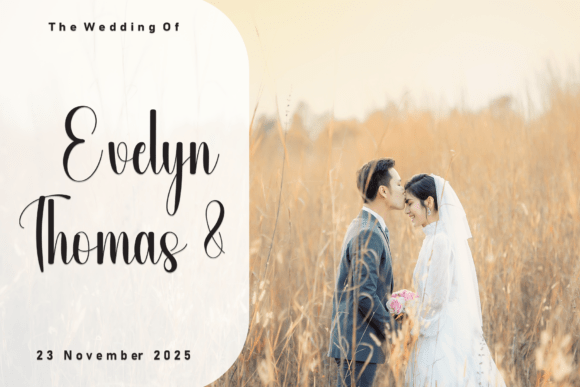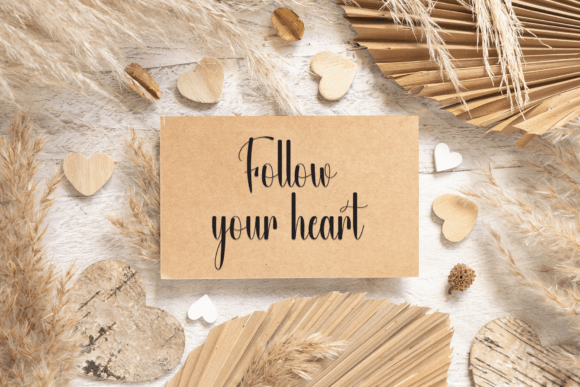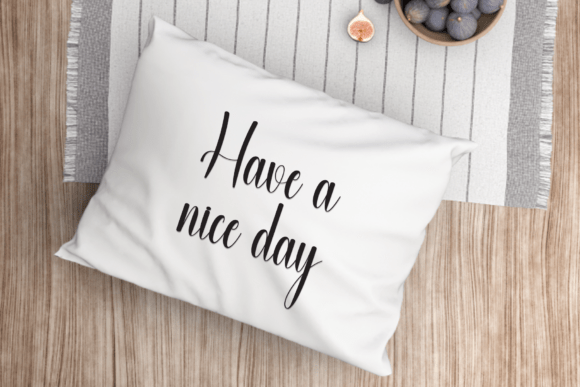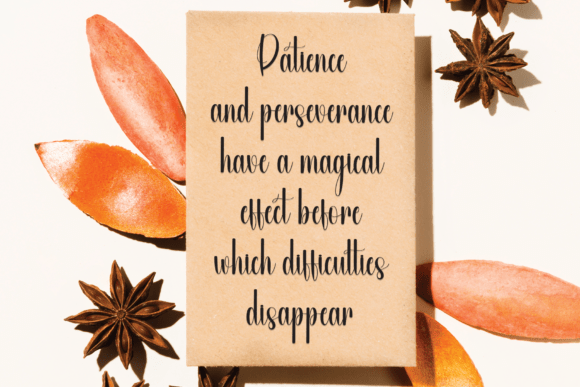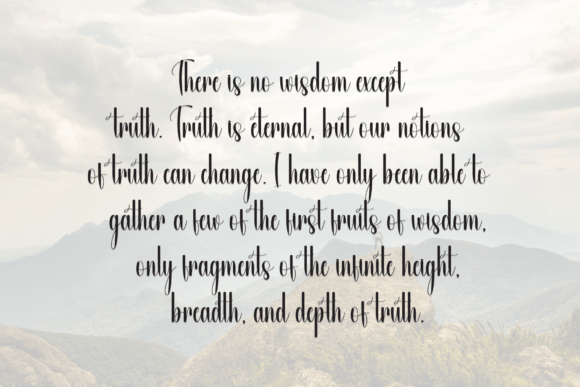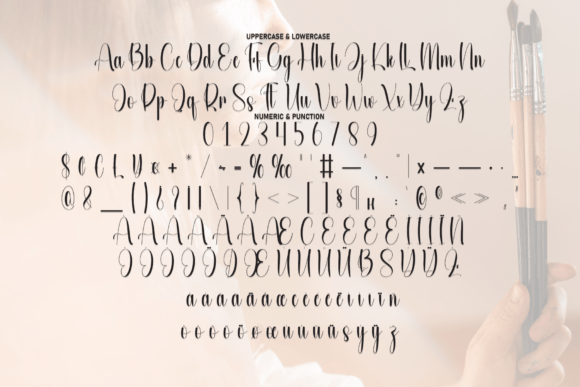
Introducing Delighter Font: Elevate Your Designs with Artistic Flair and Contemporary Elegance
In the world of typography, few fonts manage to capture the essence of hand-painted calligraphy while exuding a modern, sophisticated vibe. Delighter Font is one such stylish script font that has been making waves in the design community. With its fluid brush strokes, dynamic curves, and expressive letterforms, Delighter is the perfect addition to any design project that requires a touch of artistic flair and contemporary elegance.
The Artistry of Delighter Font
Delighter Font is a masterful blend of traditional calligraphy and modern design. Its fluid brush strokes give it a natural, hand-painted look that is both visually striking and authentic. The dynamic curves and expressive letterforms add a level of sophistication and elegance, making it an ideal choice for designers and crafters looking to elevate their work.
One of the standout features of Delighter Font is its ability to capture the essence of hand-painted calligraphy. The font’s creator has done an excellent job of mimicking the natural flow and imperfections of hand-painted letters, giving Delighter a unique and organic feel. This makes it perfect for designs that require a personal touch, such as logos, invitations, and social media graphics.
Versatility and Visual Impact
Delighter Font is not just a pretty face; it’s also incredibly versatile. Its clean and elegant design makes it suitable for a wide range of applications, from logos and branding to packaging, invitations, and social media graphics. Whether you’re working on a large-scale design project or a small, personal craft, Delighter Font is sure to deliver both visual impact and versatility.
One of the key benefits of using Delighter Font is its ability to add a creative and sophisticated touch to any design. The font’s natural flow and vibrant character make it perfect for designs that require a bit of personality and flair. Whether you’re looking to create a bold statement or a subtle impression, Delighter Font is the perfect choice.
Delighter Font is a must-have for designers and crafters looking to elevate their work. Its unique blend of artistic flair and contemporary elegance makes it perfect for a wide range of design projects. Here are just a few ways you can use Delighter Font to take your designs to the next level:
- Logos and Branding: Use Delighter Font to create a unique and memorable logo that captures the essence of your brand.
- Invitations and Stationery: Add a touch of elegance and sophistication to your invitations and stationery with Delighter Font.
- Packaging: Use Delighter Font to create eye-catching packaging that stands out on store shelves.
- Social Media Graphics: Add a creative and sophisticated touch to your social media graphics with Delighter Font.
In conclusion, Delighter Font is a stylish script font that is sure to elevate your designs with its artistic flair and contemporary elegance. With its fluid brush strokes, dynamic curves, and expressive letterforms, it’s the perfect choice for designers and crafters looking to add a touch of personality and sophistication to their work. Whether you’re working on a large-scale design project or a small, personal craft, Delighter Font is sure to deliver both visual impact and versatility.